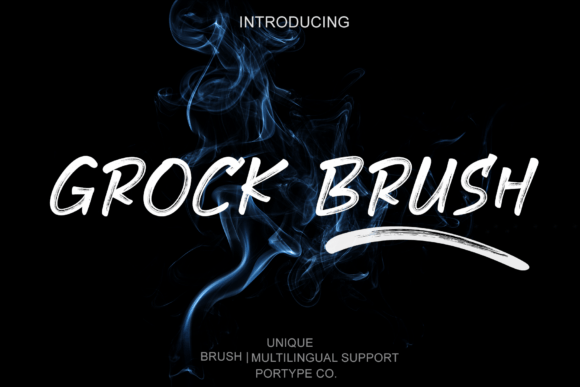
Introduction to Grock Brush Font
Grock Brush is a dynamic and eye-catching typeface that combines the raw energy of hand-painted brush strokes with a modern, edgy twist.
This unique font exudes a sense of spontaneity and creativity, making it perfect for designs that aim to capture attention and leave a lasting impression The letters in Grock Brush Font possess a distinct, slightly rough texture, reminiscent of brushstrokes made with broad strokes and varying pressure.
Key Features of Grock Brush Font
Why Choose Grock Brush Font?
Grock Brush Font offers exceptional quality and versatility, making it a valuable addition to your design toolkit. Whether you’re creating for personal projects or commercial use, Grock Brush Font delivers professional results.